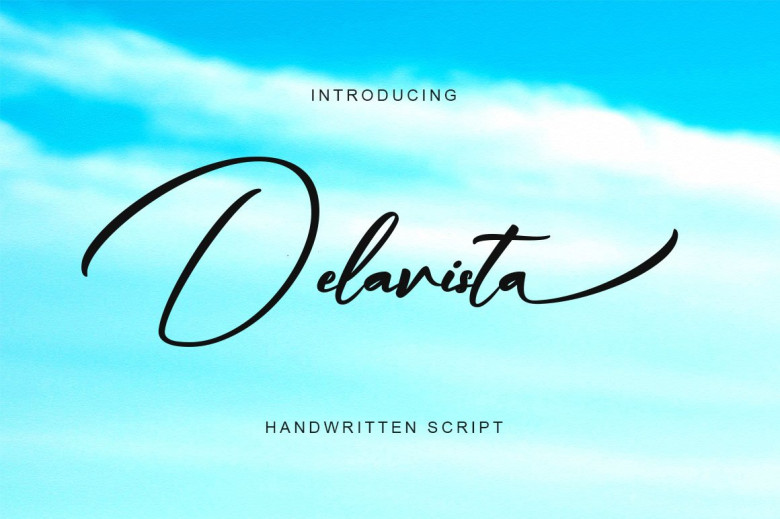
Delavista Font
Introducing Delavista – a flowing handwritten font, described offering a graceful feel, perfect for your best projects. Fall in love with its completely different and timeless style and use it to create spectacular designs! Try it on your projects and elevate them to the highest levels! This font is PUA encod ed which means you can easily access all of the glyphs and swashes!
Delavista Handwritten Font